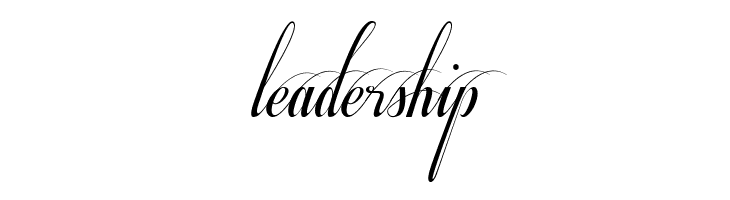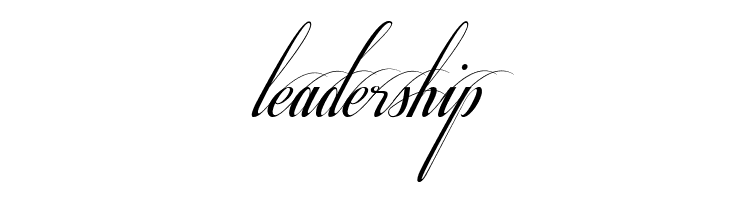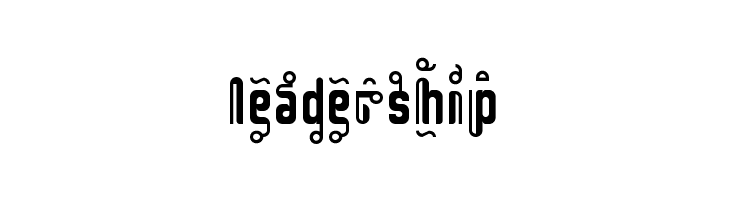
A modern, clean sans-serif font with balanced proportions and excellent readability.
A geometric, monospaced display font with a mechanical, architectural style.
An artistic and whimsical font with gothic-inspired swirls and curves.
An ornate script font with elegant swashes and decorative flourishes.
An elegant script font with intricate flourishes and a refined, flowing style.
An elegant, cursive font with intricate swashes and flourishes.
An elegant script font with ornate swirls and flourishes, exuding luxury and sophistication.
An elegant script font with intricate swashes and high contrast strokes.
An elegant, swash-filled cursive font with a slanted, decorative style.
A playful and decorative font with circular embellishments on each character.
A bold, retro-inspired font with a three-dimensional line effect.
A bold, retro-style font with lined characters and a vintage flair.
A bold, hand-drawn font with a textured, sketch-like appearance.
A modern, geometric font with a bold, futuristic style.
A dynamic and fluid handwritten script with elegant, flowing connections and varied stroke weights.
A modern, geometric font with clean lines and uniform stroke width.
A modern, geometric font with consistent stroke widths and a clean design.
A geometric, modern font with sharp angles and a futuristic style.
A playful, bold font with high contrast and unique curves.
A playful, decorative font with bold, hand-drawn characters and whimsical curves.
A playful, bold font with a hand-drawn, dynamic style.